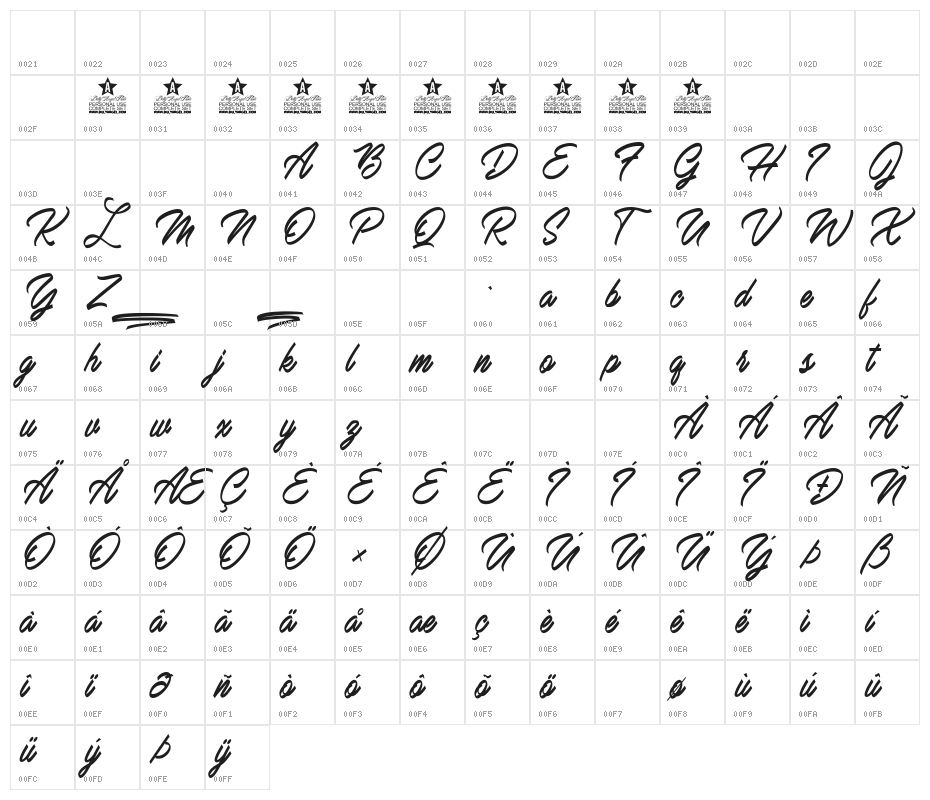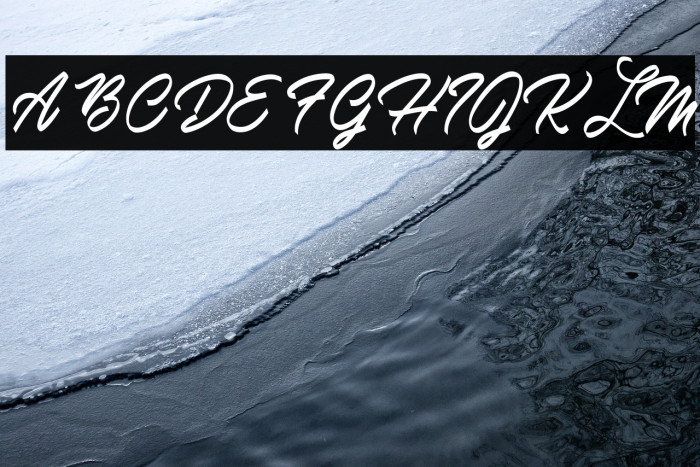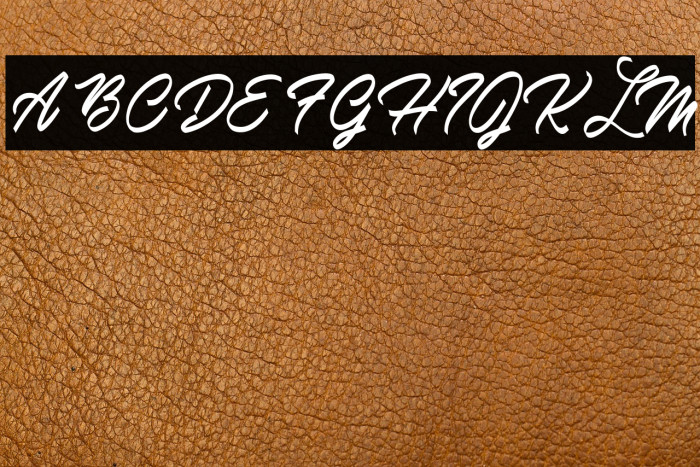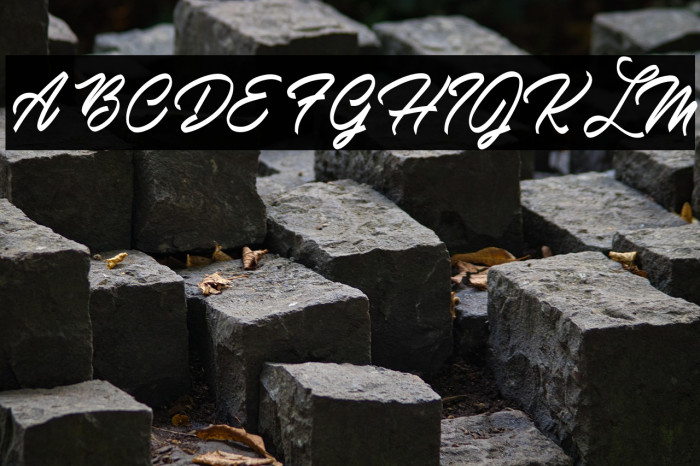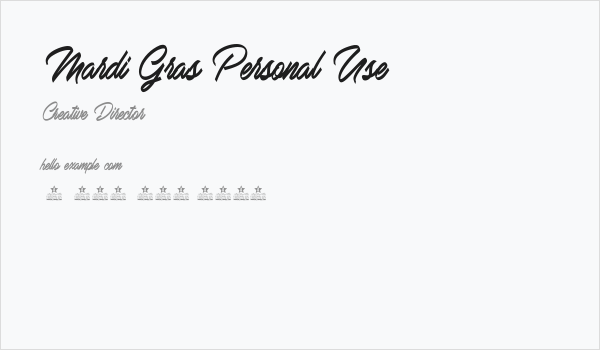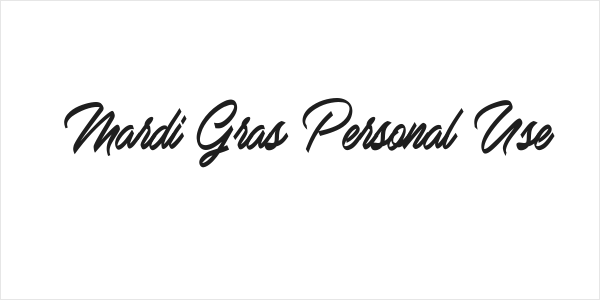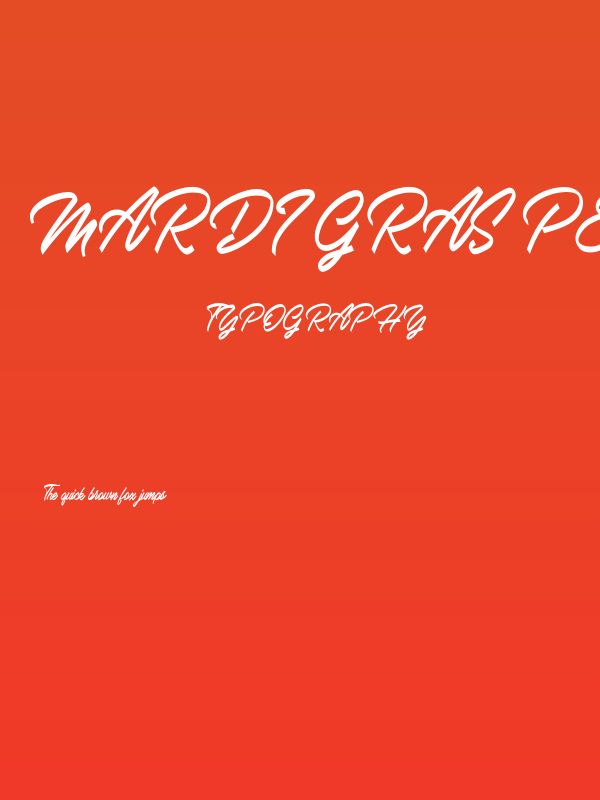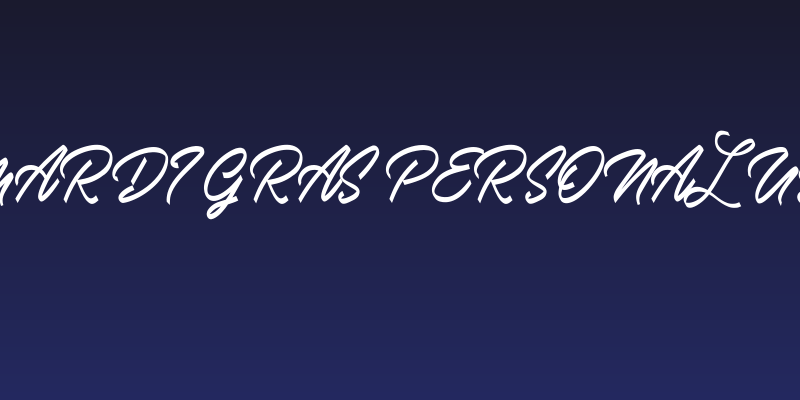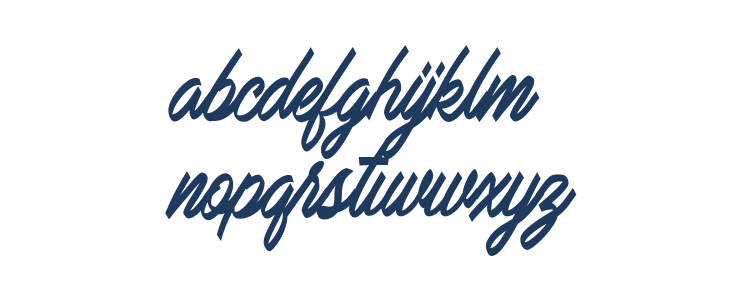
Mardi Gras Personal Use Font
Mardi Gras Personal Use Description
This font features a bold, cursive style with a dynamic and flowing appearance. The uppercase letters are elegantly crafted with sweeping curves and flourishes, giving them a sense of movement and grace. The lowercase letters maintain the same fluidity, with a slightly more compact form that complements the uppercase characters. The font exhibits a strong presence, making it suitable for attention-grabbing headlines or titles. The characters are closely spaced, enhancing the cohesive look of the text. The overall style is decorative and modern, with a touch of vintage flair, making it versatile for various design projects.
Use CaseHeadlines, Logos, Invitations
Proposed ProjectsIdeal for event invitations, branding, logos, and decorative headlines.